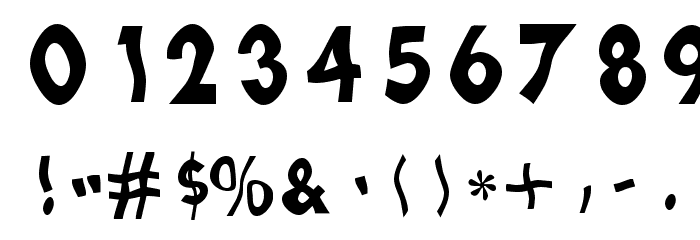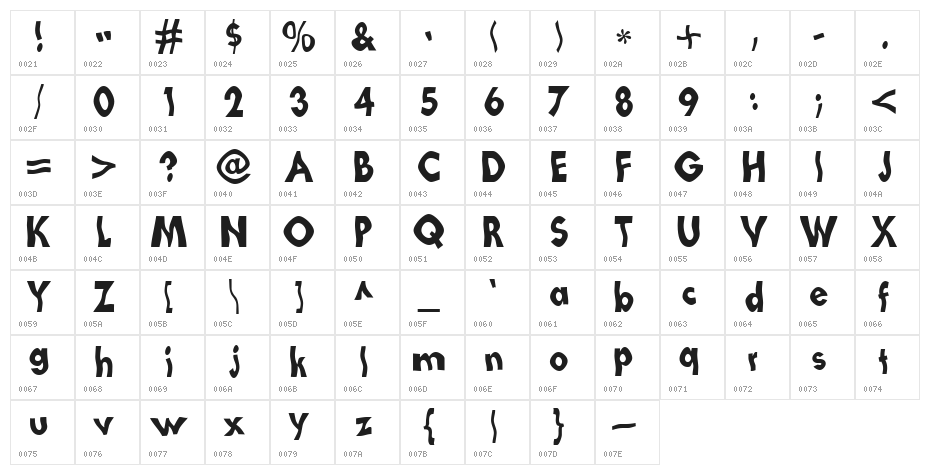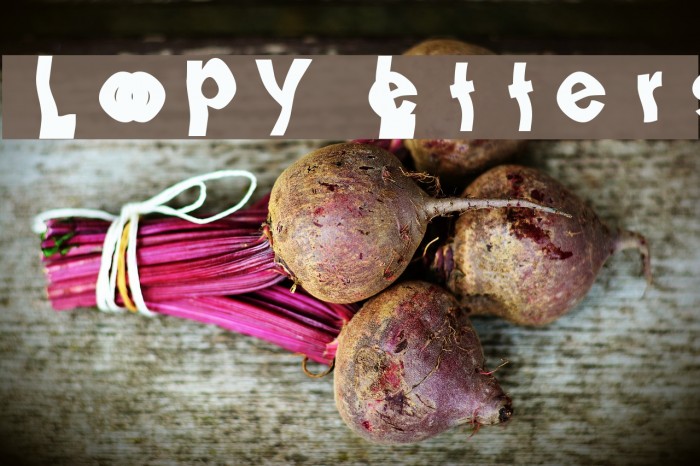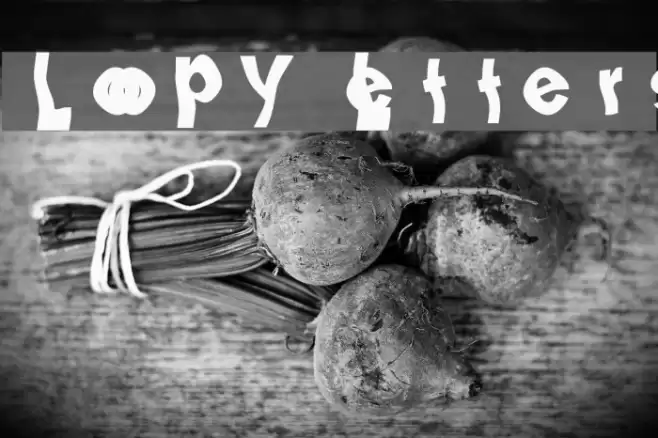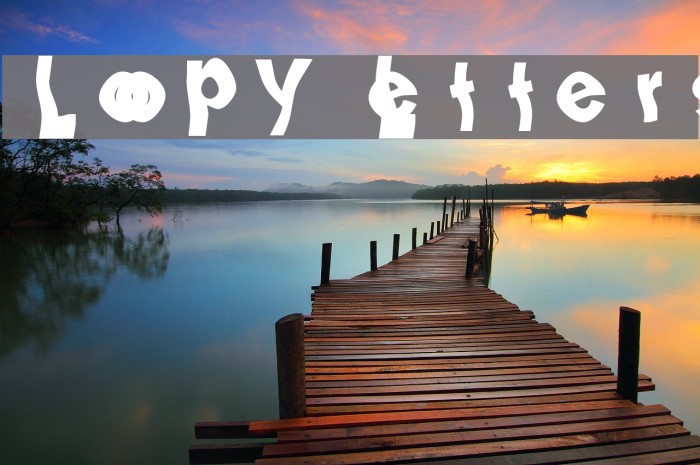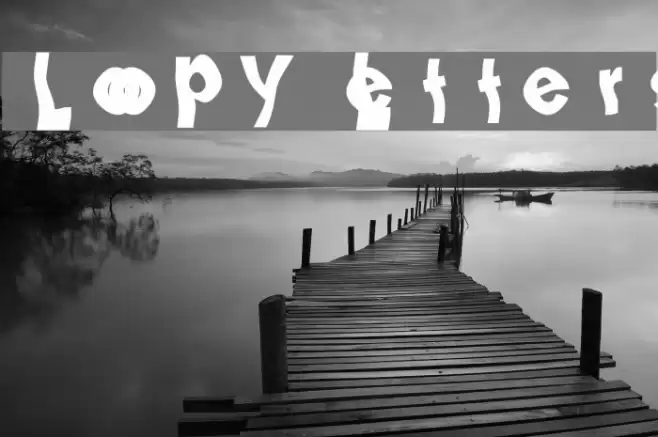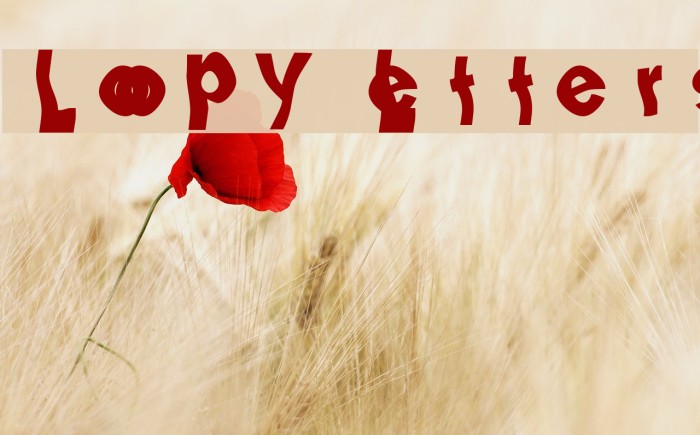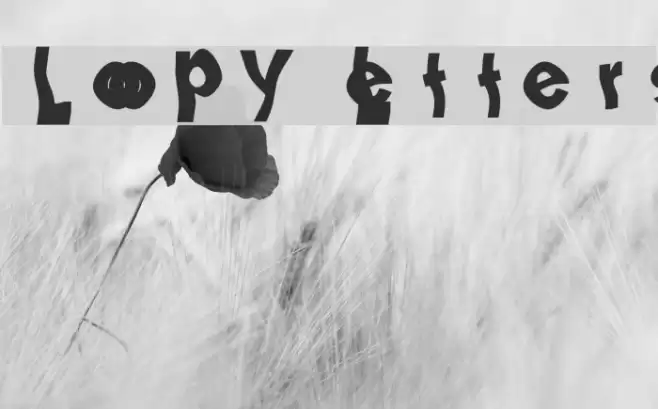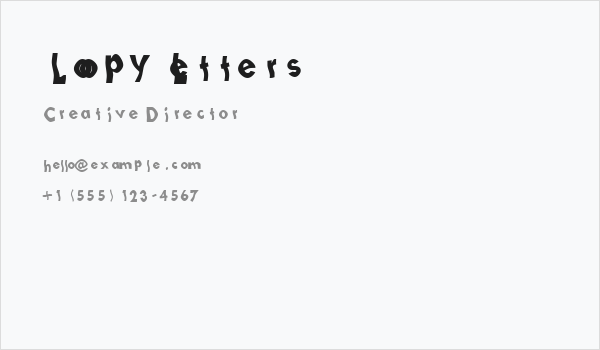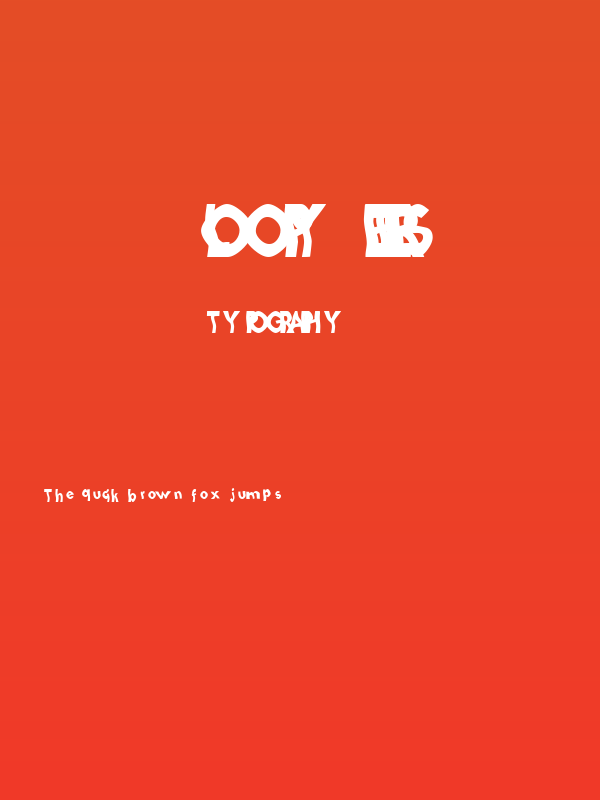
Loopy Letters Font
Loopy Letters Description
This font features a playful and whimsical design, characterized by its bold and exaggerated curves. The letters are unevenly shaped, giving a hand-drawn, artistic feel. The uppercase letters are particularly striking with their dramatic angles and loops, while the lowercase letters maintain a consistent quirky style. Numbers and special characters follow the same playful theme, making the font suitable for creative and informal projects. The overall appearance is dynamic and eye-catching, ideal for designs that require a touch of fun and creativity.